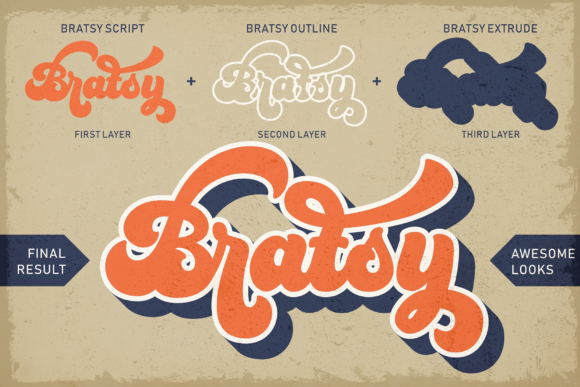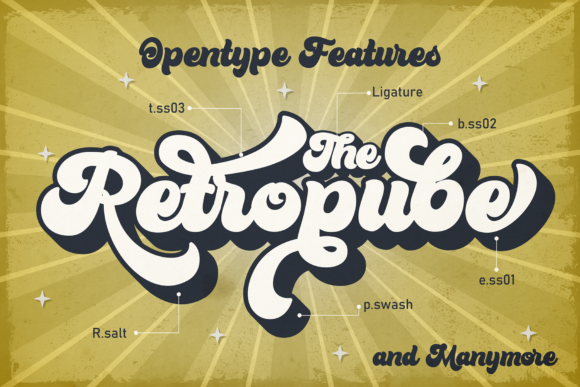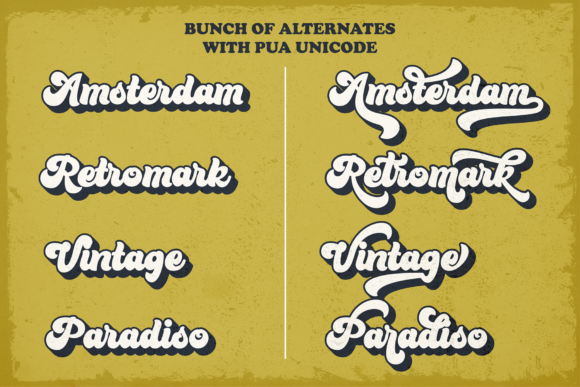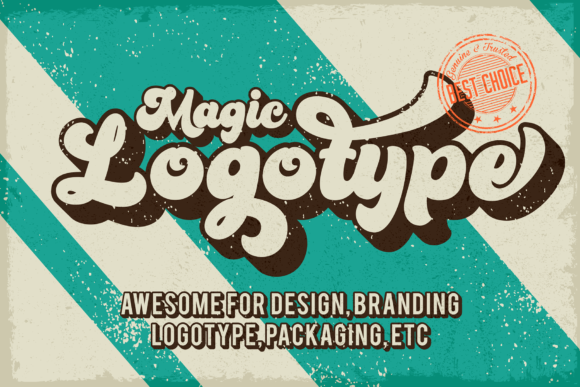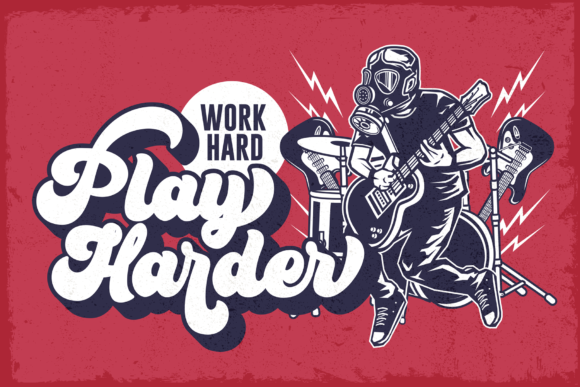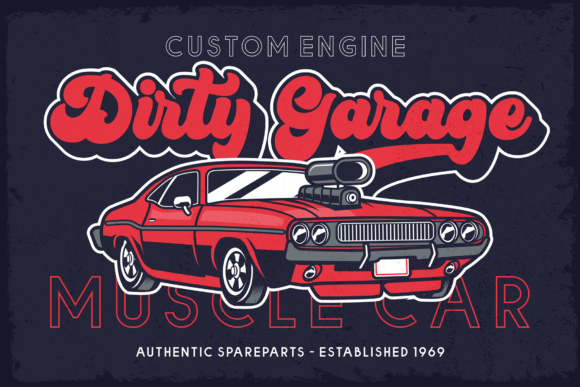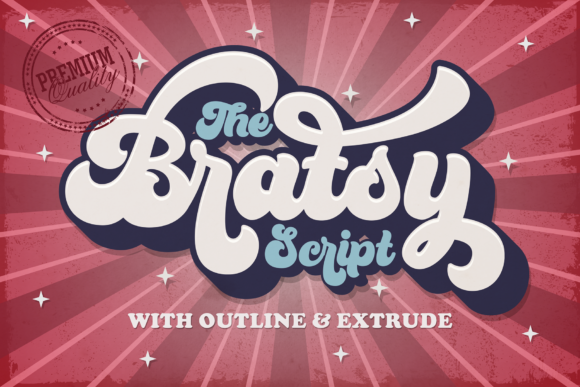
Introducing Bratsy Font: A Layered Retro Script with a Vintage Feel
Are you a designer or crafter looking for a unique typeface that evokes a sense of nostalgia? Look no further than Bratsy Font, a layered retro script with a vintage feel that’s sure to transport you back in time. In this article, we’ll dive into the world of Bratsy Font, exploring its features, benefits, and uses, as well as provide tips and inspiration for incorporating it into your design projects.
What is Bratsy Font?
Bratsy Font is a one-of-a-kind, layered retro script typeface that’s perfect for designers and crafters seeking a vintage aesthetic. With its intricate layers and distressed texture, Bratsy Font is sure to add a touch of nostalgia to any design project. Whether you’re working on a branding project, crafting a logo, or creating social media graphics, Bratsy Font is the perfect choice for adding a unique and eye-catching element.
Features of Bratsy Font
So, what makes Bratsy Font so special? Here are just a few of its standout features:
- Layered design: Bratsy Font features a layered design that gives it a unique, dimensional look. Each layer can be edited and customized to create a truly one-of-a-kind effect.
- Vintage feel: With its distressed texture and retro aesthetic, Bratsy Font is perfect for designs that require a vintage or nostalgic feel.
- Script style: Bratsy Font is a script typeface, making it perfect for adding a touch of elegance and sophistication to your designs.
- Unique and exclusive: Bratsy Font is a one-of-a-kind typeface that’s sure to make your designs stand out from the crowd.
Benefits of Using Bratsy Font
So, why should you choose Bratsy Font for your design projects? Here are just a few benefits of using this unique typeface:
- Adds a touch of nostalgia: Bratsy Font is perfect for designs that require a vintage or retro aesthetic. Whether you’re working on a branding project or creating social media graphics, Bratsy Font is sure to evoke a sense of nostalgia in your audience.
- Stand out from the crowd: With its unique layered design and vintage feel, Bratsy Font is sure to make your designs stand out from the crowd. Whether you’re working on a logo, brochure, or website, Bratsy Font is the perfect choice for adding a touch of personality and style.
- Versatile: Bratsy Font is a versatile typeface that can be used in a variety of design projects, from branding and advertising to crafting and scrapbooking.
Using Bratsy Font in Your Design Projects
So, how can you use Bratsy Font in your design projects? Here are a few ideas to get you started:
- Branding and logos: Bratsy Font is perfect for creating unique and eye-catching logos that evoke a sense of nostalgia.
- Social media graphics: Add a touch of personality and style to your social media graphics with Bratsy Font.
- Crafting and scrapbooking: Bratsy Font is perfect for crafters and scrapbookers looking to add a vintage touch to their projects.
- Advertising and marketing: Use Bratsy Font to create eye-catching ads and marketing materials that stand out from the crowd.
Here are a few tips and inspiration ideas for using Bratsy Font in your design projects:
- Experiment with layering: Don’t be afraid to experiment with the layered design of Bratsy Font. Try combining different layers and textures to create a truly unique effect.
- Pair with other vintage-inspired elements: Bratsy Font pairs perfectly with other vintage-inspired elements, such as distressed textures and retro graphics.
- Use in combination with other fonts: Try using Bratsy Font in combination with other fonts to create a unique and eye-catching effect.
| Font Name | Bratsy Font |
| Author | figuree studio |
In conclusion, Bratsy Font is a unique and versatile typeface that’s perfect for designers and crafters looking to add a touch of nostalgia to their design projects. With its layered retro script design and vintage feel, Bratsy Font is sure to evoke a sense of nostalgia in your audience. Whether you’re working on a branding project, crafting a logo, or creating social media graphics, Bratsy Font is the perfect choice for adding a unique and eye-catching element.